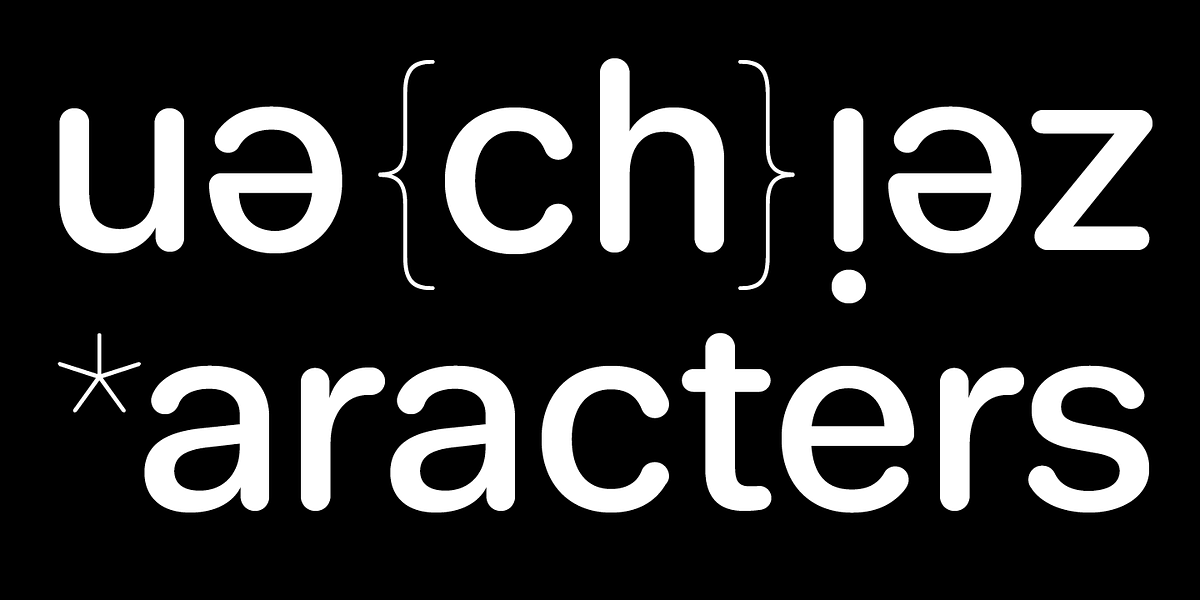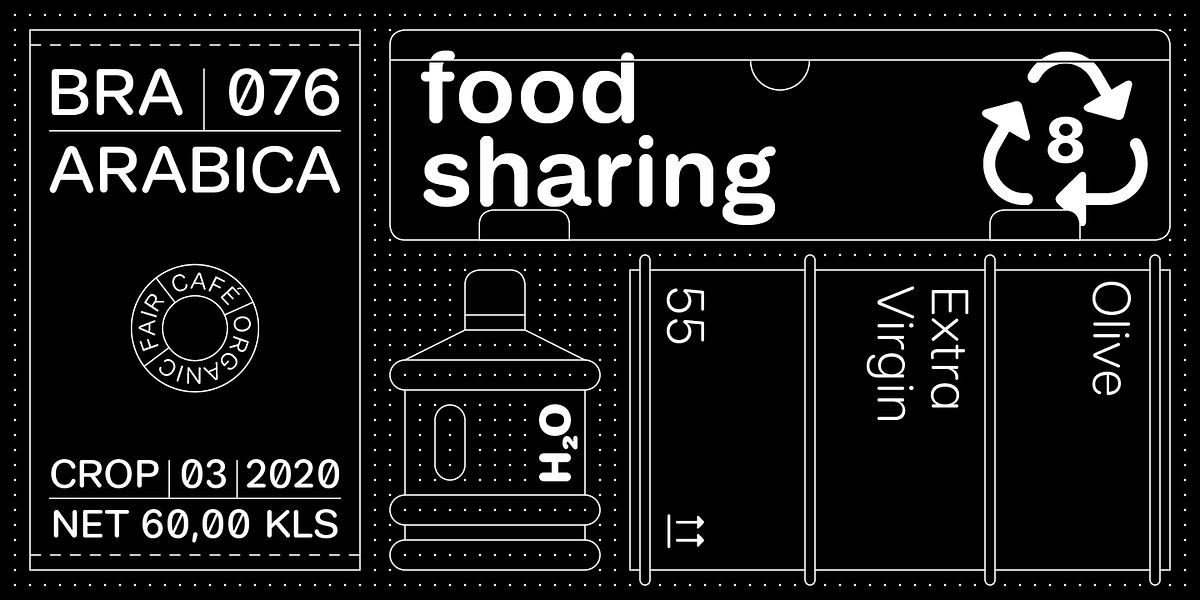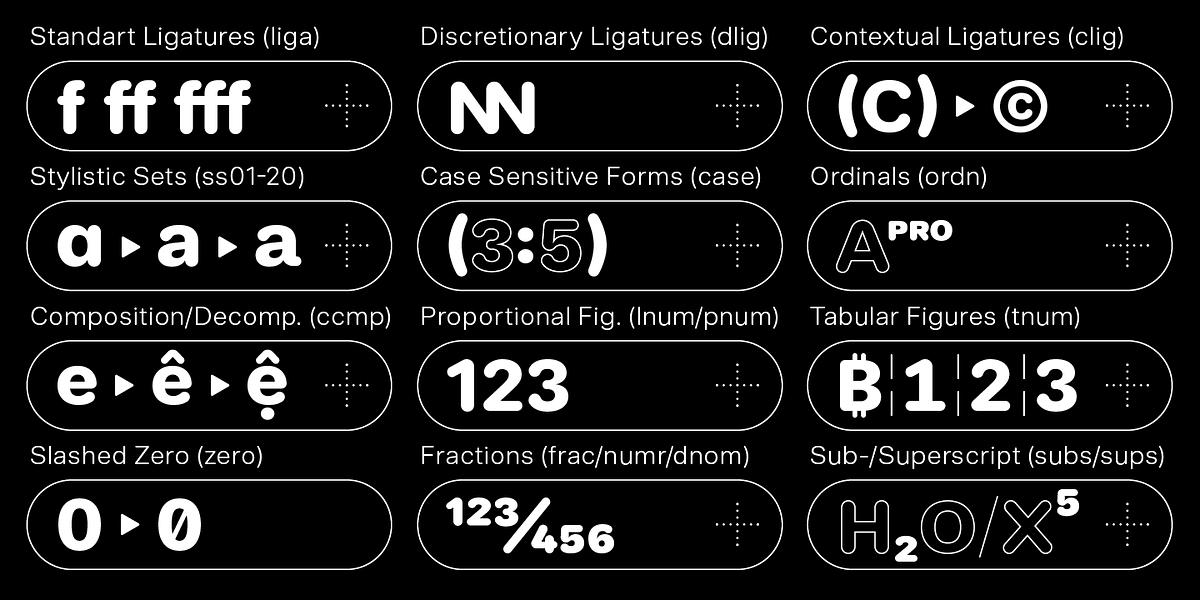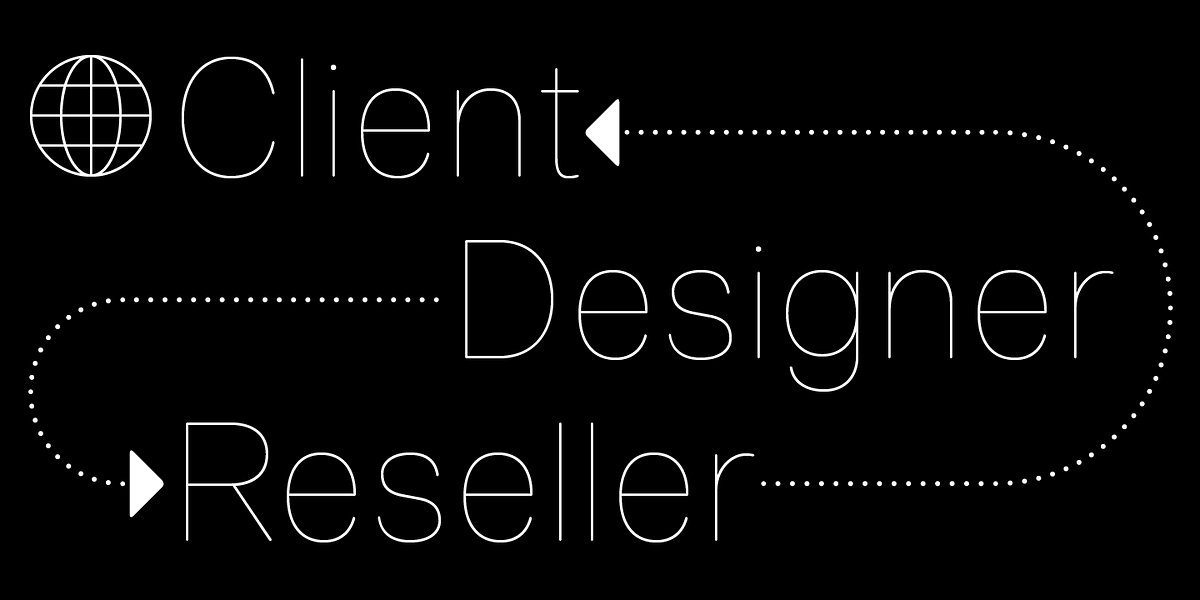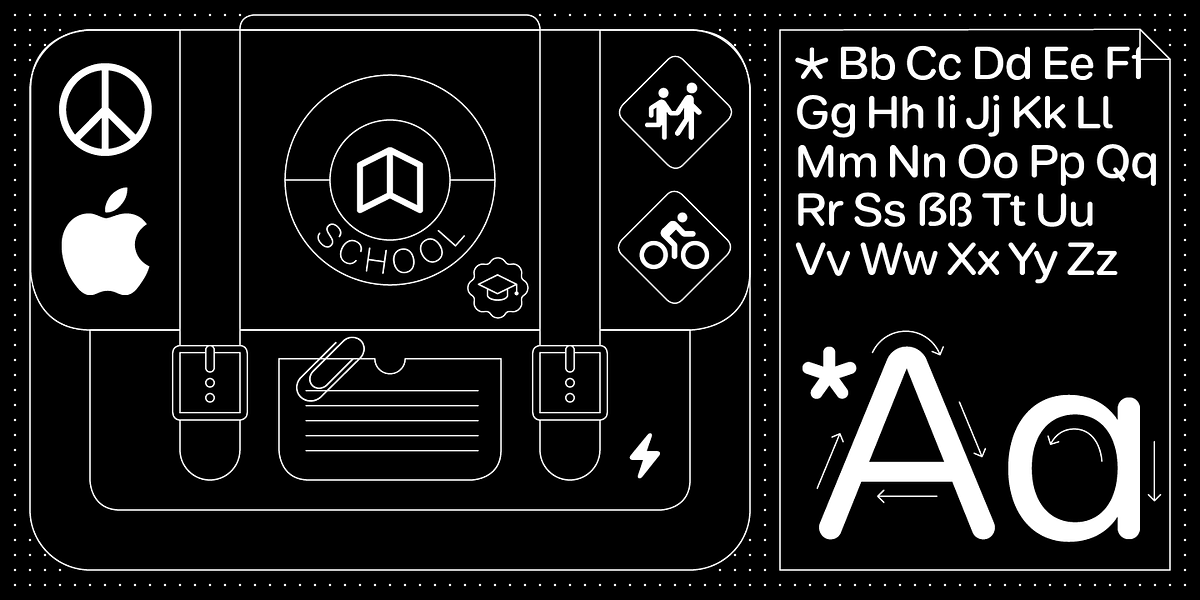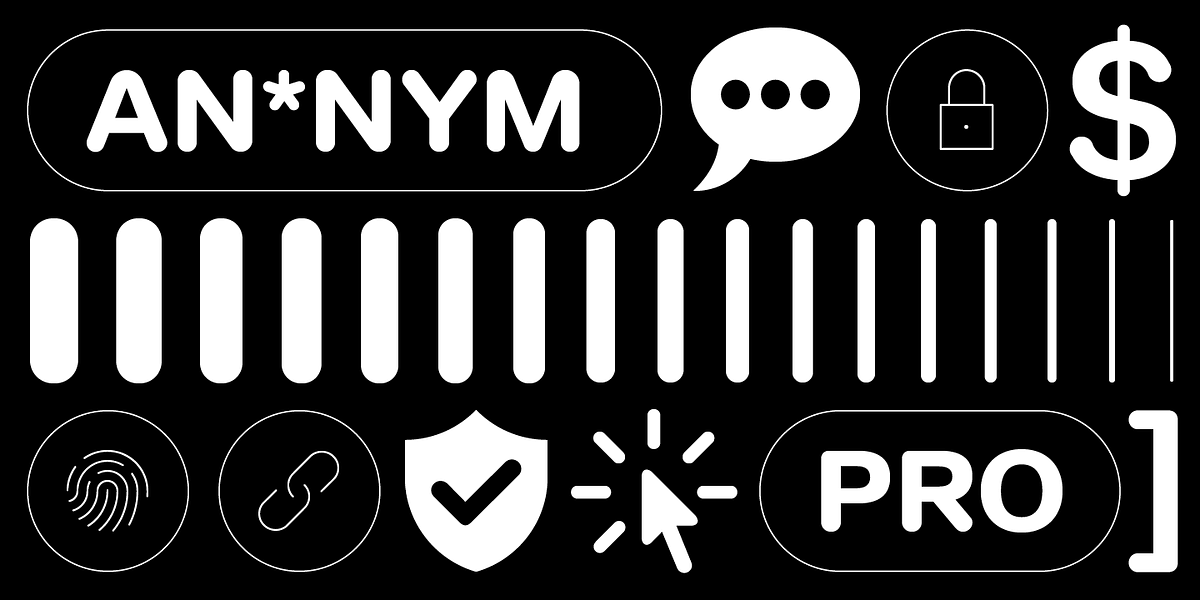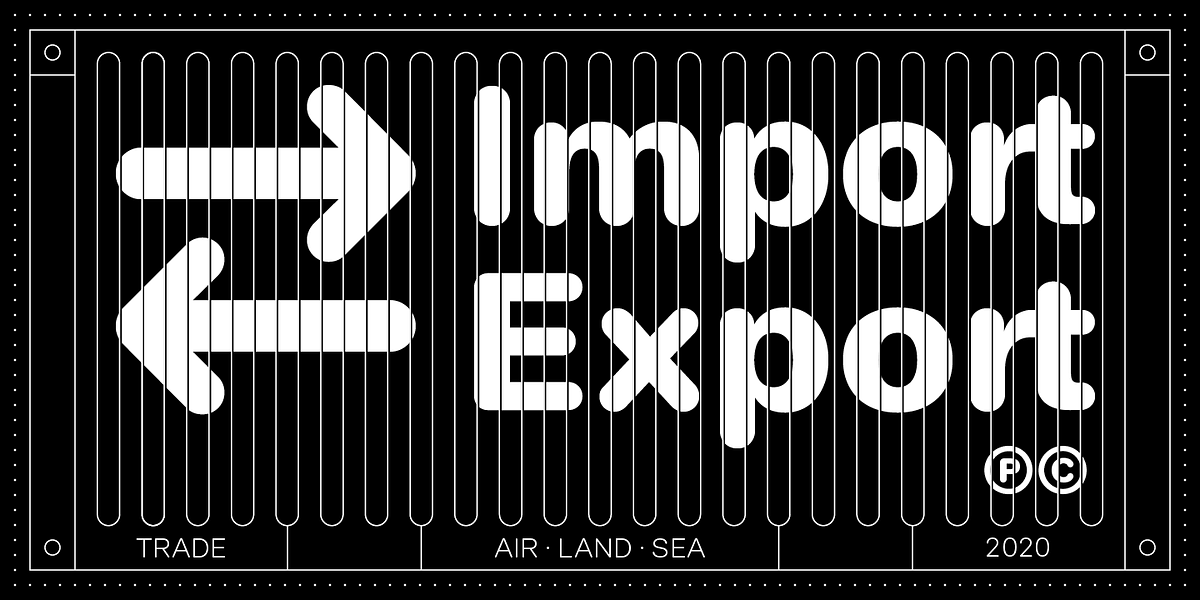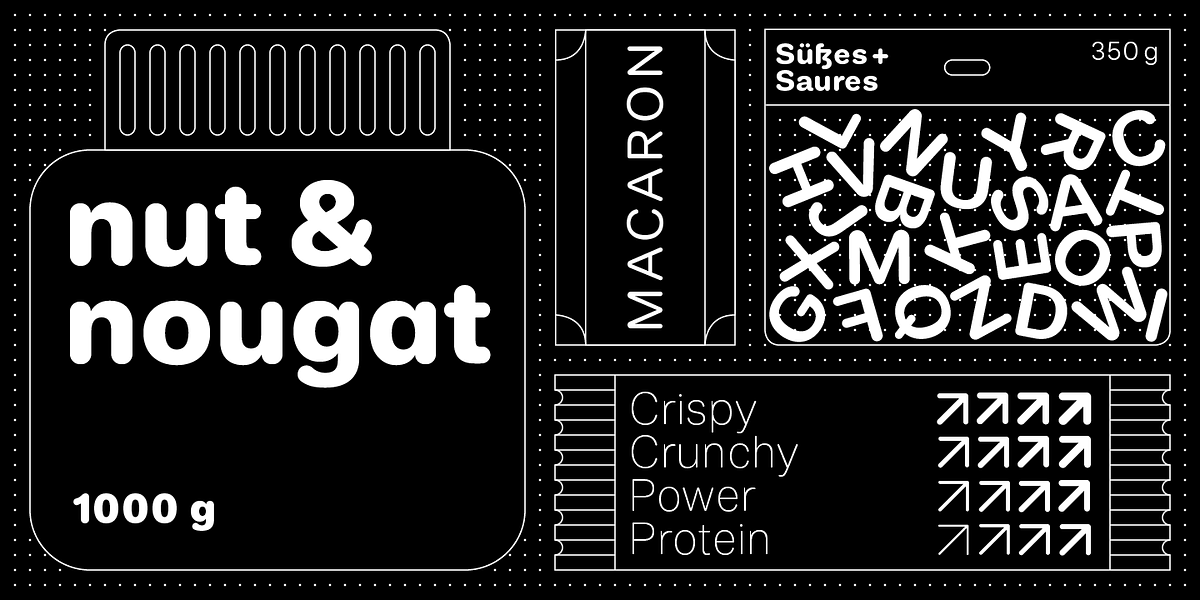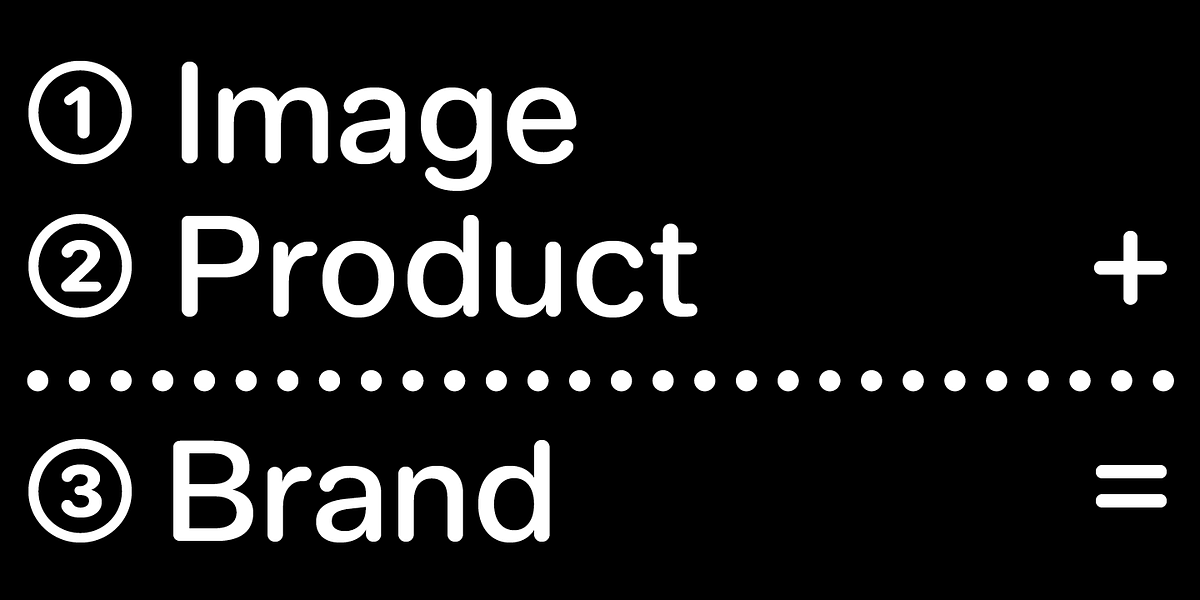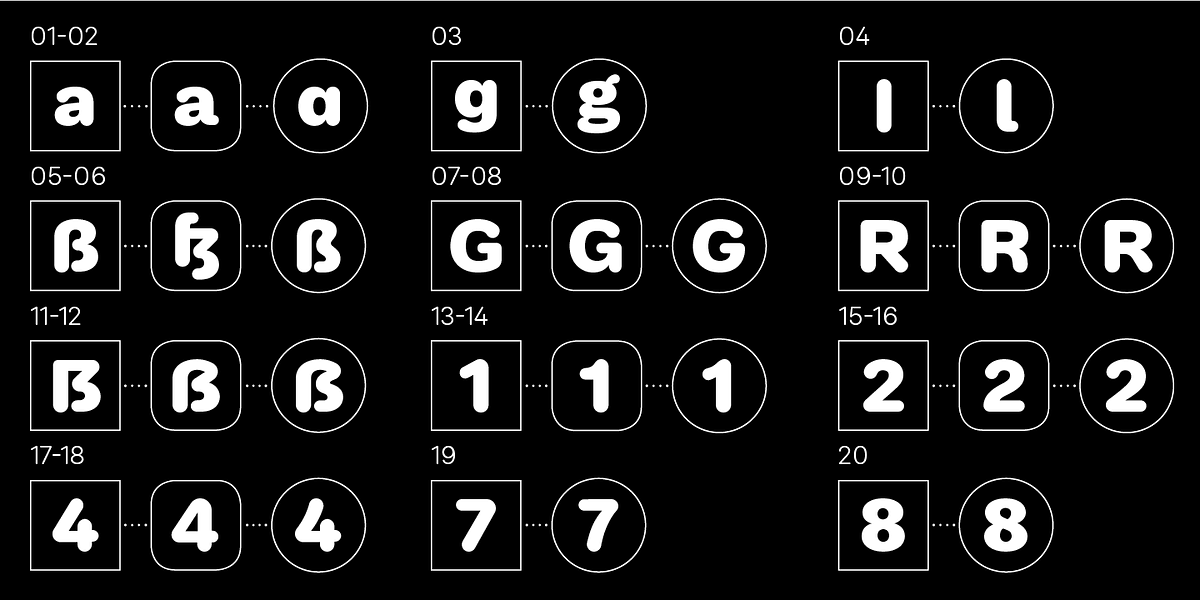
BB Anonym™ (Pro)
BB Anonym™ is a rounded neo-grotesque sans serif typeface designed with 17 styles and extensive OpenType features. Its design concept explores the idea of outsourcing and encryption in the design process, resulting in a unique visual aesthetic.